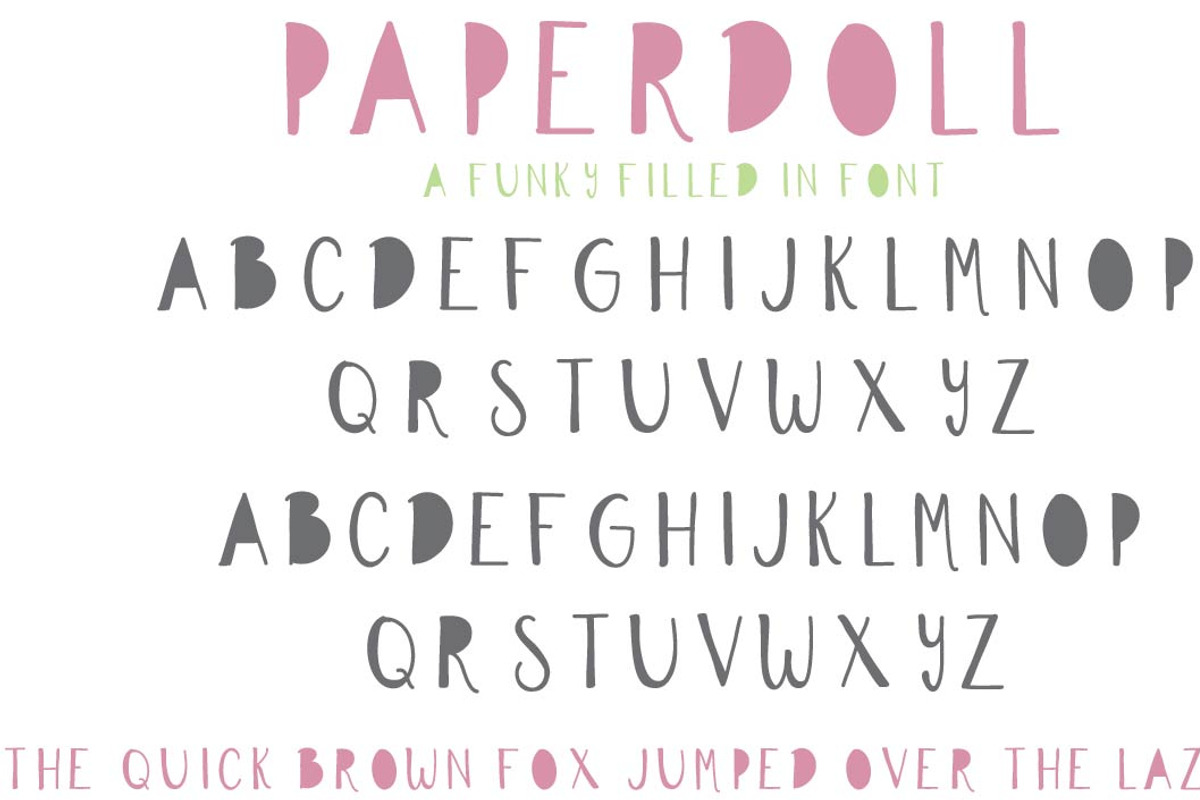
Paper Doll Handlettered Typeface
Paper Doll Handlettered Typeface by OnTheSpotStudio is a font selected for branding, posters, packaging, typography.
Why Paper Doll Handlettered Typeface is worth a look
Paper Doll Handlettered Typeface by OnTheSpotStudio fits naturally into Branding, posters, packaging, typography.